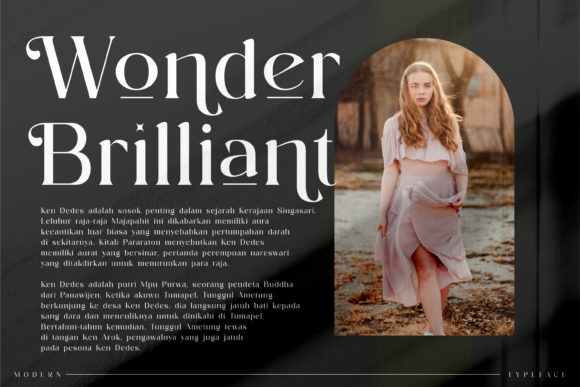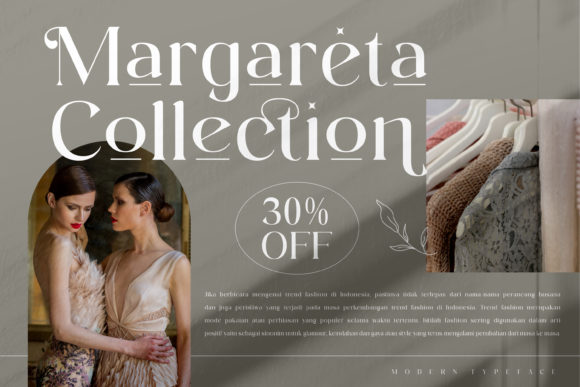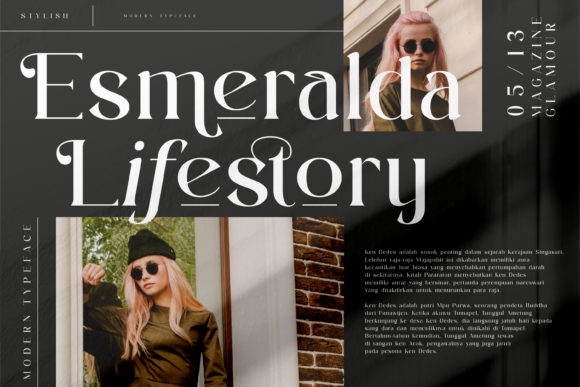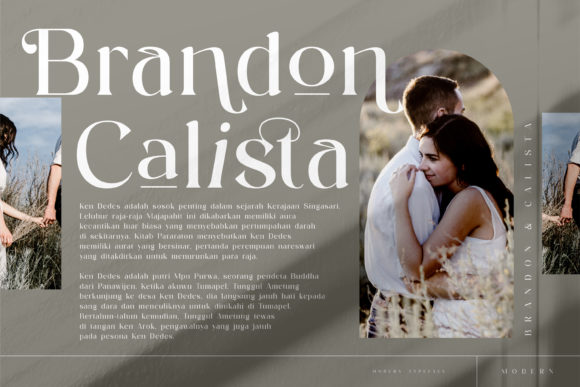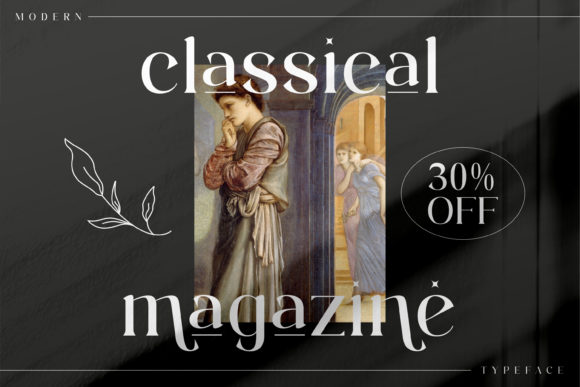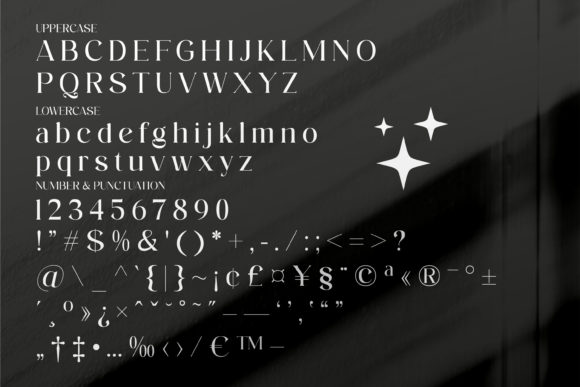
The Aftesto Font: Elevate Your Designs with Elegance
Have you ever been in the middle of a design project, and suddenly, you feel like something’s missing? You’re not quite sure what it is, but you know it’s not quite coming together as you’d like. I’ve been there too! I was working on a branding project for a luxury client, and I just couldn’t find the right font to capture the essence of their high-end products. That’s when I stumbled upon the Aftesto font, and it completely transformed my design.
A Personal Review: What I Love About Aftesto
The Aftesto font has quickly become one of my go-to fonts for elegant and sophisticated designs. Here’s what I love about it:
• ✨ Elegant and Distinct Serif Design: Aftesto boasts a classic serif design with a unique twist, making it perfect for luxury brands, high-end products, and sophisticated designs.
• ✅ PUA Encoded for Easy Access: The font is PUA encoded, which means you can easily access all the glyphs and swashes without any hassle.
• 💫 Highly Versatile: Aftesto works beautifully for both print and digital designs, from business cards to billboards.
While Aftesto is an amazing font, there are a few minor quirks to be aware of:
• 🤔 Learning Curve for Advanced Features: If you’re new to using OpenType features or glyphs, it might take some time to get familiar with Aftesto’s capabilities.
• ⚠️ Limited Use for Casual Designs: Aftesto’s elegant design might not be the best fit for casual or playful projects, as it leans more towards luxury and sophistication.
The Designer Inspiration Behind Aftesto
Aftesto was created with the intention of bringing a touch of luxury and sophistication to designs. Its elegant serif design and PUA encoding make it a versatile font for various projects. While the actual designer behind Aftesto remains a mystery, it’s clear that their goal was to craft a font that would elevate designs and inspire creativity.
What is PUA encoding, and how does it benefit Aftesto? PUA (Private Use Area) encoding allows for easy access to a font’s glyphs and swashes, making it simpler to use Aftesto’s advanced features.
Is Aftesto suitable for body text? While Aftesto is elegant and sophisticated, it might not be the best choice for lengthy body text. Consider using it for headlines, titles, or accents.